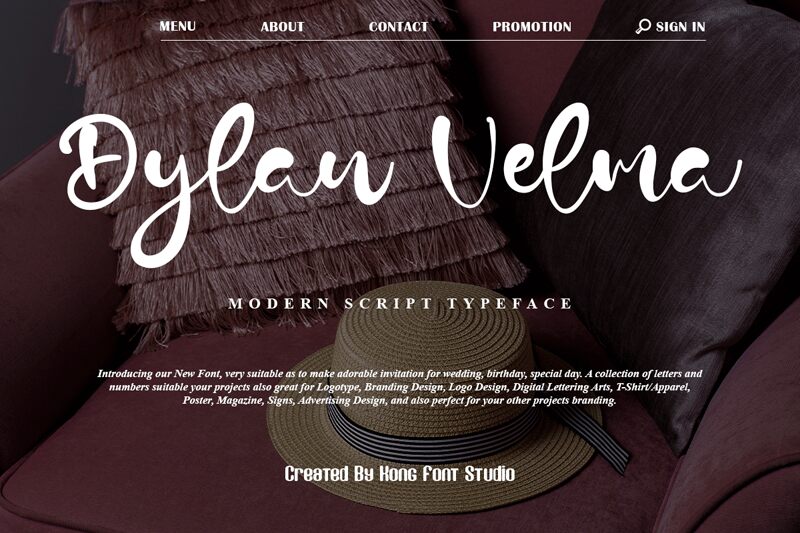
Dylan Velma
Dylan Velma is a modern marker font designed by Kong Font, perfect for projects that require a mix of casual and professional styles. Its semi-bold weight creates a bold statement without being too overpowering. This versatile typeface can be used for anything from branding, packaging, and advertising to social media graphics and blog titles. With its unique hand-drawn style, Dylan Velma brings personality to any project while remaining clean and legible. Stand out from the crowd with this modern font that adds an artistic touch to your design.